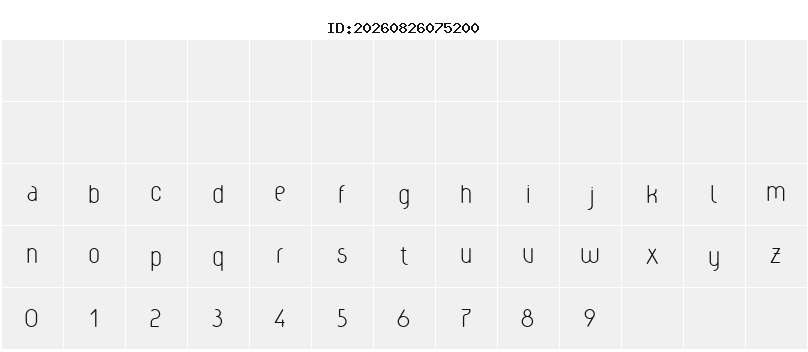
wec Preview
• Font Name: wec
• Font ID: CarlosHoracioValera: wec Light: 2011
• Full Font Name: wec-Light
• PostScript Name: wec-Light
• Designer: Carlos Horacio Valera
• Manufacturer: Carlos Horacio Valera
About wec.ttf
wec.ttf is a modern, elegant sans-serif font designed for ultimate readability and visual harmony. Perfect for branding, headlines, web design, and print materials.